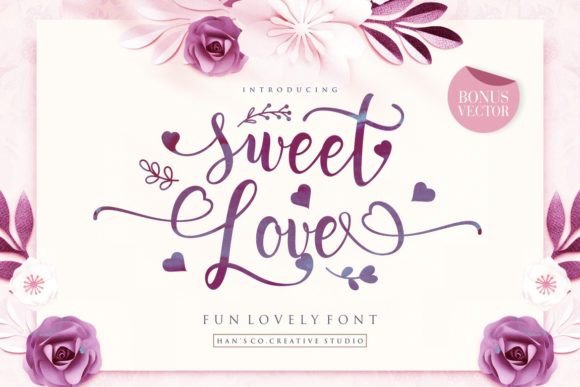
Sweet Love Calligraphy Font
Hello world..!! This is a natural & modern handwritten font, a fabulous calligraphy typefaces. A new fresh & modern script with a calligraphy style. Introducing Sweet Love Font! It’s designed and shared by HansCo. Sweet Love Calligraphy is an incredibly sweet and delicious handwritten script with a lovely feel. Whether it’s Valentine’s Day or Christmas, this the ultimate font for turning any romantic crafts idea into a stunning piece of art!